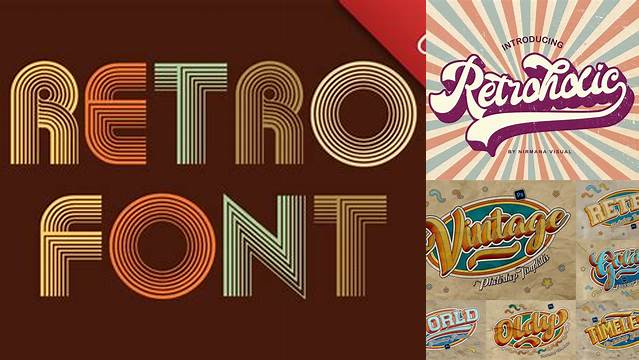
Unlocking Retro Style: Free Fonts For Your Designs
Hey there, design enthusiasts! Ever scroll through social media or a cool website and just feel that amazing vintage vibe? You know, the kind of style that transports you back to the golden eras of the '60s, '70s, or '80s? Well, a huge part of nailing that nostalgic aesthetic comes down to typography, and guess what? You don't always need to break the bank to get it! Today, we're diving deep into the wonderful world of free retro fonts – a treasure trove waiting to elevate your creative projects. Whether you're a seasoned designer or just starting out, finding the perfect free retro font can seriously boost your work, giving it that unique, timeless charm that everybody loves. We're talking about everything from funky disco letters to elegant art deco scripts, all available without spending a dime. So, let's explore how you can harness the power of these incredible typefaces and infuse some serious retro cool into your designs.
What Are Retro Fonts, Anyway?
So, what are retro fonts at their core, guys? Simply put, retro fonts are typefaces that take inspiration from past eras, replicating the styles and characteristics of typography popular during specific historical periods. They're not just old fonts; they're designed to evoke a sense of nostalgia, bringing back the visual language of decades gone by. Think about the bold, blocky letters of the 1980s, the groovy, psychedelic swirls of the 1970s, or the elegant, streamlined forms of Art Deco from the 1920s and '30s. Each era had its distinct typographic personality, and retro fonts capture that essence. They often feature unique serifs, exaggerated curves, distinctive weights, and sometimes even distressed textures to mimic the printing methods of yesteryear. The beauty of these fonts lies in their ability to instantly communicate a specific mood or time, making your designs feel rich with history and character. Using a well-chosen free retro font can make your project feel authentic and deeply connected to a specific vintage aesthetic, distinguishing it from generic modern designs. It's all about that historical flair, making something new feel wonderfully old-school.
Why Should You Choose Free Retro Fonts for Your Projects?
Diving into 80s Retro Font Styles
Ah, the 80s retro font styles! This decade was a powerhouse of bold, vibrant, and often futuristic typography, and thankfully, there are tons of awesome free retro fonts that perfectly capture its essence. When you think of the '80s, what comes to mind? Neon lights, arcade games, synthwave music, and big hair, right? Well, the fonts reflect that energy! We're talking about strong, blocky sans-serifs, often with thick outlines or geometric distortions that scream 'Miami Vice' or 'Stranger Things'. Think about those iconic movie posters from the era, with their metallic effects and dramatic slants. Many 80s-inspired fonts feature a digital, pixelated look, reminiscent of early computer graphics and video games, bringing a wonderfully chunky charm to your text. Others might lean into the art deco revival that was subtly present, or incorporate a more sci-fi, futuristic feel with sleek lines and wide spacing. The color palette often associated with these fonts involves bright purples, pinks, and blues, making them incredibly impactful for headings, logos, and album covers. They’re fantastic for projects that need to feel energetic, bold, and distinctly rad! Seriously, guys, if you want to make a statement, an 80s free retro font is your go-to.
Exploring the Groovy 70s Retro Font Aesthetic
Let's turn back the clock a bit further and explore the utterly groovy 70s retro font aesthetic. This decade was all about freedom, psychedelia, disco, and a general sense of flowing, organic design, and the fonts definitely reflect that vibe. When you're looking for free retro fonts inspired by the 70s, you'll often encounter smooth, rounded edges, exaggerated curves, and a distinct lack of sharp angles. Think about those iconic album covers from rock bands or the title sequences of popular TV shows; they often used bubbly, almost liquid-like letterforms that felt playful and free-spirited. Many 70s fonts feature wide, heavy baselines, often with a slight wobble or an uneven feel, giving them a handmade, organic touch. Script fonts with dramatic swashes and ligatures were also very popular, evoking the era's counter-culture and artistic movements. Color-wise, the 70s often saw warm earthy tones, vibrant oranges, and rich browns, making these fonts perfect for designs that need to feel authentic, warm, and a little bit bohemian. Whether you're designing for a vintage-themed event or just want to infuse some peace and love into your work, a 70s free retro font is an excellent choice for capturing that unmistakable, laid-back cool.
Unearthing the Classic 60s Retro Font Charm
Moving even further back, let's talk about unearthing the classic 60s retro font charm. The 1960s were a decade of immense change, from the rise of pop art and mod culture to the flower power movement, and this diverse landscape gave birth to some truly iconic and wonderfully expressive typography. When you're searching for free retro fonts from the 60s, you'll find a captivating blend of styles. On one hand, you have the clean, bold, and geometric sans-serifs that were popular in advertising and corporate branding, reflecting a modern, optimistic outlook. Think about the sleek lines and simple forms that embody a sense of contemporary sophistication. On the other hand, the counter-culture movement brought us psychedelic fonts: wild, distorted, often illegible typefaces that swirled and melted, perfect for concert posters and underground magazines. These fonts are vibrant, experimental, and incredibly artistic, often featuring elongated ascenders and descenders, or intricate intertwining letterforms. You also see charming, hand-drawn styles that have a friendly, approachable feel, perfect for children's books or casual branding. The 60s are a goldmine for variety, offering everything from bold, no-nonsense typefaces to whimsical, expressive scripts. A great free retro font from this era can add a layer of historical depth and visual intrigue to any project, whether you're going for sleek mod or full-on psychedelic.
Embrace the Elegant Vintage Retro Font Look
To embrace the elegant vintage retro font look is to tap into a timeless aesthetic that harks back to eras before the loud and proud '70s and '80s, often drawing from the early 20th century. These aren't just old-looking fonts; they embody a sense of refinement, history, and often a touch of artisanal craftsmanship. When you're on the hunt for free retro fonts with a true vintage feel, you'll frequently encounter beautiful serif typefaces with delicate details, ornate swashes, and a sense of hand-drawn precision. Think about the typography found on old product labels, whiskey bottles, or classic advertisements – they often exude a dignified charm. Art Deco-inspired fonts, with their geometric precision and strong lines, fall into this category, offering a sophisticated and luxurious touch. You might also find slab serifs with a sturdy, industrial feel, perfect for a rugged, heritage brand. Many vintage retro fonts also feature a slightly distressed or textured appearance, mimicking the imperfections of old printing presses, which adds to their authentic appeal. These typefaces are fantastic for projects that require a sense of gravitas, elegance, or a deep connection to tradition. Whether it's for a boutique brand, a formal invitation, or a product that wants to communicate quality and legacy, an elegant free retro font is an absolute winner, guys.
Get Grungy with Retro Distressed Fonts
If you're aiming for something a bit rougher around the edges, something that tells a story of wear and tear, then you definitely need to get grungy with retro distressed fonts! These aren't your grandma's elegant scripts; these are the typefaces that look like they've been through a lot, and in the best possible way. Retro distressed fonts take classic styles from various eras—be it the 50s, 60s, 70s, or 80s—and then add intentional imperfections, textures, and grit. Imagine letters that look chipped, faded, scratched, or simply worn out, mimicking the effects of old letterpress printing, weathered signs, or even just general aging. This adds an incredible amount of character and authenticity to your designs, instantly giving them a raw, edgy, and often rebellious feel. A free retro font with a distressed effect can make a modern design feel instantly lived-in and historic, without actually being old. They're perfect for band posters, indie brand identities, event flyers, or any project that needs to communicate a sense of ruggedness, authenticity, or a cool, anti-establishment vibe. These fonts are all about breaking the mold and adding a tactile, almost tangible, feel to your typography, making your message resonate with a unique kind of vintage attitude. So, if polished isn't your thing, grab a distressed free retro font and let your designs get a little dirty, in the best way possible!
Mastering the Art Deco Retro Font Look
To truly master the Art Deco retro font look is to understand a design philosophy that emerged in the 1920s and flourished through the 1930s, characterized by sleek lines, geometric shapes, and a sense of luxury and modernity. Art Deco typography is all about elegance, symmetry, and a strong, confident presence. When you're searching for free retro fonts inspired by this era, you'll notice a distinct emphasis on clean, often sans-serif letterforms, frequently with sharp angles, wide, even strokes, and a very structured appearance. Think about the iconic skyscrapers of New York City, the intricate patterns of Gatsby-era fashion, or the elaborate movie posters from the Golden Age of Hollywood – the fonts mirror that opulent yet streamlined aesthetic. Many Art Deco fonts feature interesting ligatures or decorative elements that are subtly integrated into the letterforms, adding a touch of sophisticated flair without becoming overly ornate. They often have a vertical emphasis, creating a sense of height and grandeur. These typefaces are fantastic for projects that aim to evoke glamour, sophistication, and a sense of vintage luxury. They are perfect for branding high-end products, creating elegant invitations, designing book covers, or setting the scene for any project that needs a touch of classic, roaring twenties' panache. Finding a great free retro font in the Art Deco style can instantly elevate your design to a realm of timeless chic.
Unleash Creativity with Retro Script Fonts
Guys, if you want to add a touch of personal flair, elegance, or just some delightful funkiness, then you need to unleash creativity with retro script fonts! These typefaces mimic handwriting, but with a distinct stylistic nod to various past decades, making them incredibly versatile and expressive. When you're exploring free retro fonts in the script category, you'll find everything from the elegant, flowing calligraphy of the 1940s and 50s, often seen on vintage advertisements and greeting cards, to the bold, brush-style scripts of the 60s and 70s, perfect for album covers and groovy posters. Some retro script fonts have a very natural, hand-drawn feel, while others are more structured and refined. They often feature beautiful swashes, ligatures, and variations in stroke width that give them a dynamic, energetic appearance. Imagine a diner sign from the 1950s or a quirky band logo from the 1970s; chances are, it used a fantastic retro script. These fonts are excellent for adding a human touch, a sense of authenticity, or a specific vintage vibe to your design. They're perfect for logos, headlines, invitations, and any project where you want to communicate warmth, charm, or a distinct artistic statement. A well-chosen free retro font in a script style can truly make your text sing and add that unforgettable, personal touch.
Make a Statement with Retro Display Fonts
When you need your text to absolutely scream for attention, to be the star of the show, then it's time to make a statement with retro display fonts. These are the showstoppers, the attention-grabbers, specifically designed for headlines, titles, and other large-format applications where impact is key. Unlike body text fonts, free retro display fonts often feature exaggerated characteristics, unique decorative elements, and bold, unconventional forms that are meant to be seen and admired. Think about the distinctive logos of classic arcade games, the iconic movie titles from decades past, or the eye-catching signage of vintage shops. These fonts draw inspiration from a huge range of eras, incorporating everything from the geometric boldness of the 1920s, the psychedelic swirls of the 1960s, to the chunky, pixelated styles of the 1980s. They are not subtle; they are meant to be loud, proud, and memorable. Because of their often elaborate nature, they are best used sparingly, for short bursts of text where maximum visual punch is required. A great free retro font in a display style can instantly give your poster, flyer, social media graphic, or website banner an unforgettable vintage personality, ensuring your message not only gets seen but also leaves a lasting impression with its undeniable retro charm. They're pure typographic magic, guys!
Keep it Clean and Cool with Retro Sans-Serif Fonts
Sometimes, you want that retro feel without all the frills and fuss, and that's where you need to keep it clean and cool with retro sans-serif fonts. These typefaces, while lacking the small decorative strokes (serifs) at the ends of their letters, still manage to capture the essence of past decades with their unique proportions, weights, and forms. When you're searching for free retro fonts in the sans-serif category, you'll find options that evoke a range of eras. Think about the sleek, modernist typography of the mid-20th century – the bold, geometric sans-serifs that were popular in Swiss design and corporate branding, communicating efficiency and forward-thinking. Or consider the chunky, often rounded sans-serifs of the 1970s and 80s, which offered a friendly, approachable, yet still impactful look, perfect for a playful vibe. These fonts often stand out due to their unique character widths, slightly irregular kerning, or a particular weight distribution that differentiates them from their purely modern counterparts. Retro sans-serifs are incredibly versatile, working beautifully for everything from logos and headlines to body text in smaller doses. They're fantastic for designs that need to convey a sense of understated vintage cool, clarity, and professionalism with a subtle nod to the past. A good free retro font in sans-serif style can offer that perfect balance of clean readability and timeless retro appeal, making your designs feel both contemporary and classic at the same time.
Add Sophistication with Retro Serif Fonts
If you're aiming for a look that's timeless, sophisticated, and rooted in rich typographic history, then you absolutely need to add sophistication with retro serif fonts. Serifs, those little feet at the ends of letter strokes, have been around for centuries, and retro versions of these fonts draw inspiration from the specific styles popular in past decades. When you hunt for free retro fonts in the serif category, you'll discover a huge variety, each with its own historical flavor. You might find elegant old-style serifs reminiscent of early 20th-century books and newspapers, which exude a classic, literary charm. Or perhaps you'll stumble upon bold slab serifs, popularized in the mid-century, which have a sturdy, impactful presence, perfect for vintage posters and advertisements that needed to grab attention. Think about the robust typefaces used on old Western movie posters or classic signage. These retro serifs often feature unique proportions, distinctive weight distribution, and sometimes even a slightly distressed texture to mimic traditional printing methods. They bring a sense of gravitas, warmth, and authenticity to your designs, making them ideal for branding, editorial layouts, or any project that benefits from a strong, authoritative, yet inviting presence. A fantastic free retro font with serifs can truly ground your design in a sense of history and classic beauty, giving it an undeniable touch of vintage elegance.
How to Use Free Retro Fonts in Your Designs Effectively
Alright, guys, simply finding awesome free retro fonts isn't enough; you also need to know how to use free retro fonts in your designs effectively to really make them shine! The key is to treat them with respect for their inherent style and era. First, don't overdo it. Retro fonts, especially display or heavily stylized ones, are best used for headlines, logos, or short bursts of text where you want to make a big impact. Using them for entire paragraphs can quickly become overwhelming or illegible. Second, consider the era you're aiming for. A 1980s neon font won't work as well with a 1920s Art Deco aesthetic. Consistency in your retro theme is crucial for creating a cohesive and believable design. Third, pair them wisely. Often, a strong retro display font looks fantastic when paired with a more neutral, modern sans-serif for body text, creating a balanced and readable design. Fourth, pay attention to color. Retro fonts often come alive with specific color palettes that evoke their respective eras – think muted tones for vintage, neons for the 80s, and earthy colors for the 70s. Lastly, experiment with effects! Things like gradients, shadows, and outlines can further enhance the retro feel of your selected font. By following these tips, your chosen free retro font will not just be a typeface; it'll be a powerful design element that perfectly communicates your vision.
Best Practices for Integrating Retro Fonts into Modern Designs
Integrating retro fonts into modern designs can be a super effective way to create something truly unique and memorable, but it requires a bit of finesse, guys! The trick is to achieve a harmonious blend rather than a clashing mess. Here are some best practices for integrating retro fonts into modern designs. First, use retro fonts as an accent. Think of them as the spice, not the whole meal. A powerful free retro font for a headline or a logo can bring that vintage punch, while the rest of your design elements—like body text, layout, and imagery—can maintain a contemporary feel. This contrast often makes both the retro and modern elements stand out even more. Second, play with juxtaposition. Pair a super clean, minimalist layout with a bold, chunky 80s display font, or an elegant, flowing retro script with a stark, modern photography style. The unexpected combination can be incredibly visually interesting. Third, maintain a consistent color palette and graphic style throughout your design to unify the diverse font choices. Even if your font is retro, your overall color scheme can be very modern. Fourth, ensure readability. While retro fonts are fantastic for style, some can be less legible at smaller sizes. Always test your retro font choices across different mediums and sizes to ensure your message isn't lost. By consciously blending old and new, you can create designs that feel fresh, nostalgic, and undeniably stylish with your favorite free retro font selections.